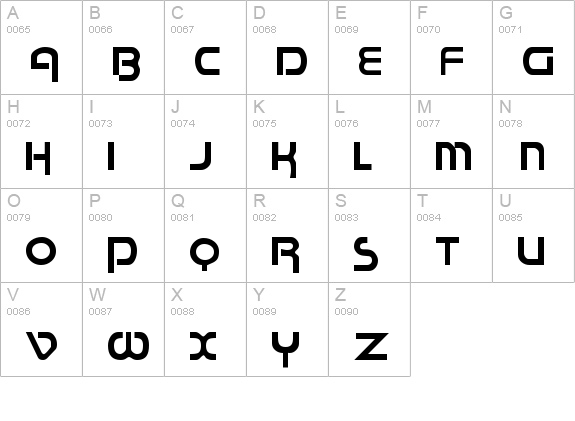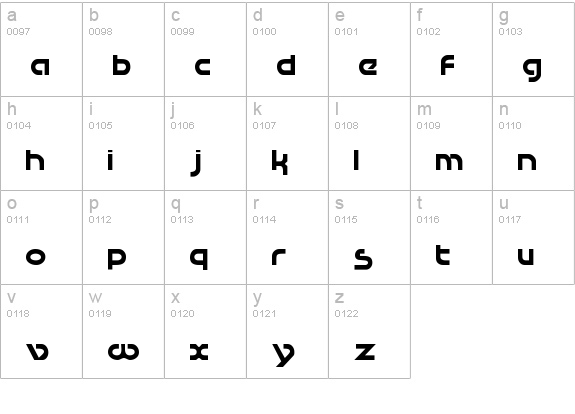
RaceTracSSK Font Details
Introducing RaceTracSSK font, a dynamic and eye-catching typeface that is sure to make a bold statement in any design project. This unique font combines the perfect balance of modernity and retro charm, resulting in a truly captivating visual experience. RaceTracSSK boasts an extensive character set, allowing for versatility and creativity in your typographic endeavors. Whether you're designing a logo, crafting a poster, or even creating an innovative website, this font is guaranteed to add a touch of distinction and originality to your work. One of the most appealing aspects of RaceTracSSK font is that it is freely available to download at FontsMarket.com. This means that you can enhance your designs without incurring any additional costs. With a few simple clicks, you can instantly access this font and take your creative projects to new heights. The elegant and sleek lines of RaceTracSSK provide a smooth and fluid reading experience, making it ideal for both headline and body text. Its versatility allows it to seamlessly adapt to various design styles, ensuring that it remains a go-to choice for designers of all levels. Furthermore, RaceTracSSK font conveys a sense of energy and movement, making it particularly well-suited for projects related to sports, automotive, or any other industry that requires a touch of dynamic flair. Its bold and confident aesthetic will undoubtedly captivate your audience and leave a lasting impression. In conclusion, RaceTracSSK font is an exceptional typeface that effortlessly combines modernity with retro charm. Its extensive character set, smooth lines, and versatile nature make it an excellent choice for a wide range of design projects. Best of all, it is freely available to download at FontsMarket.com, allowing you to enhance your designs without any financial constraints. Embrace the captivating allure of RaceTracSSK font and elevate your creative endeavors to new heights.